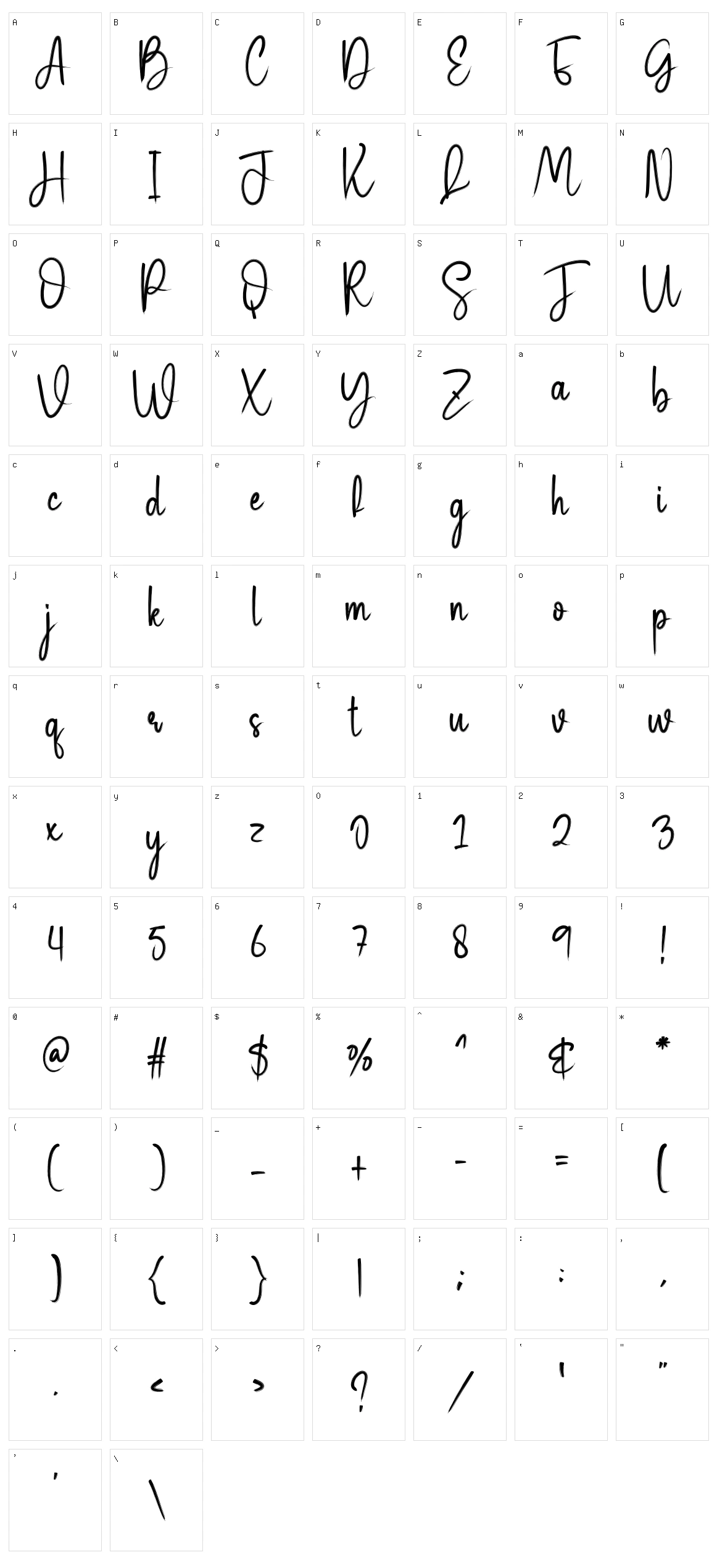
The free font Picture is carefully designed by Scratchones, showcasing a thoughtful balance of creativity and usability and falls under the Script font style. When you download the ZIP file, it contains only 776.31 KB of font files, making it lightweight and quick to download. Please review the license details below to understand permitted usage and distribution rights. If license information is not available, we recommend using this font for personal projects only or contacting the author directly for commercial usage permissions.